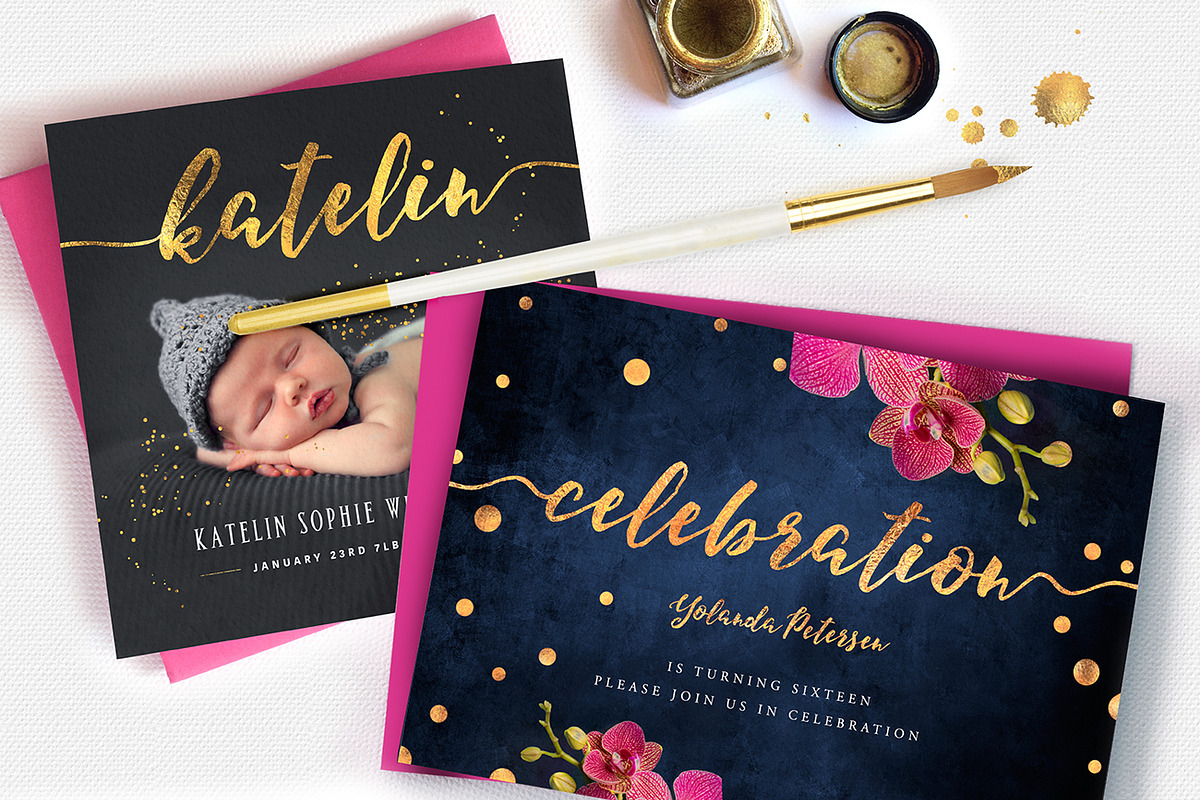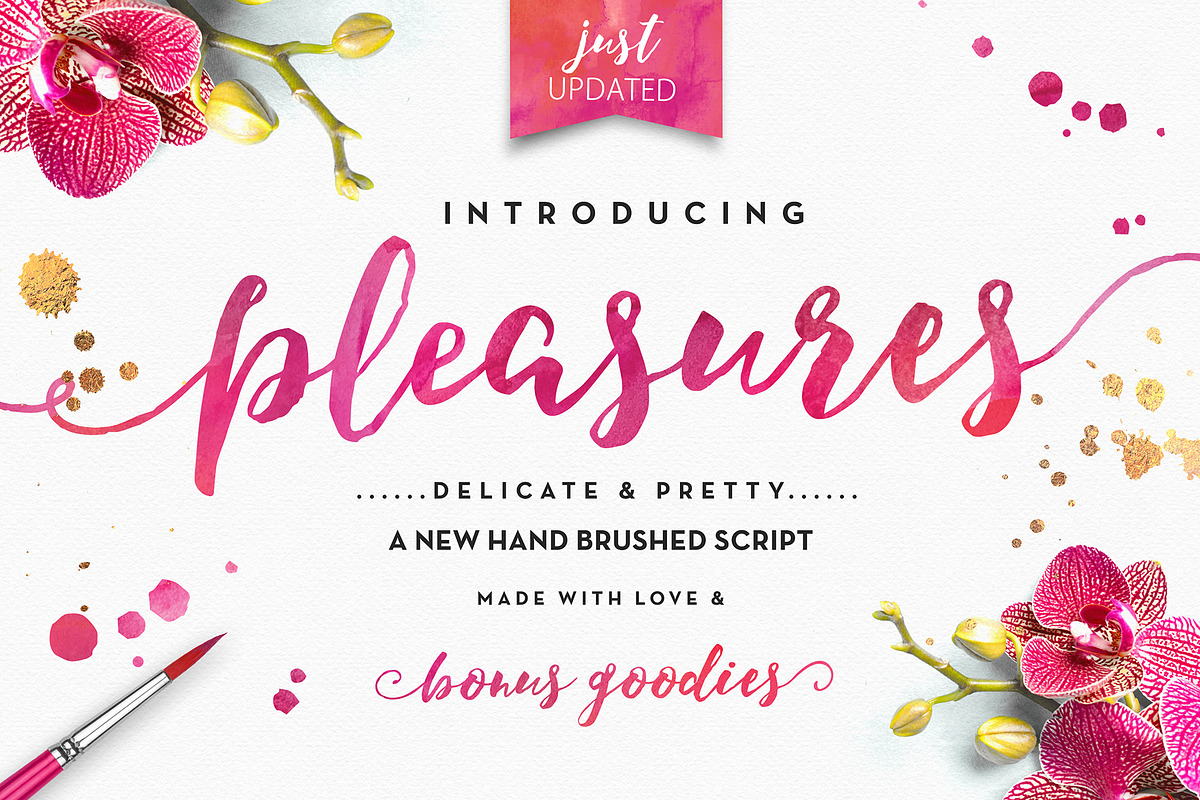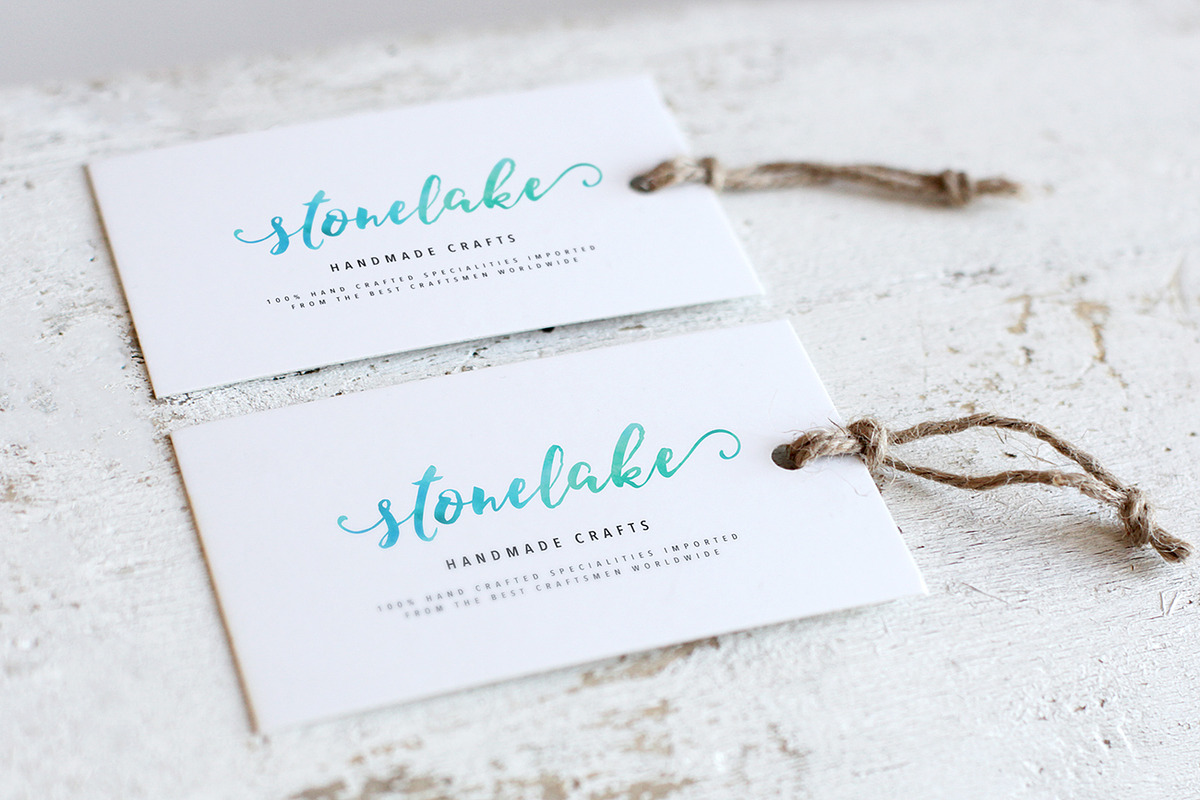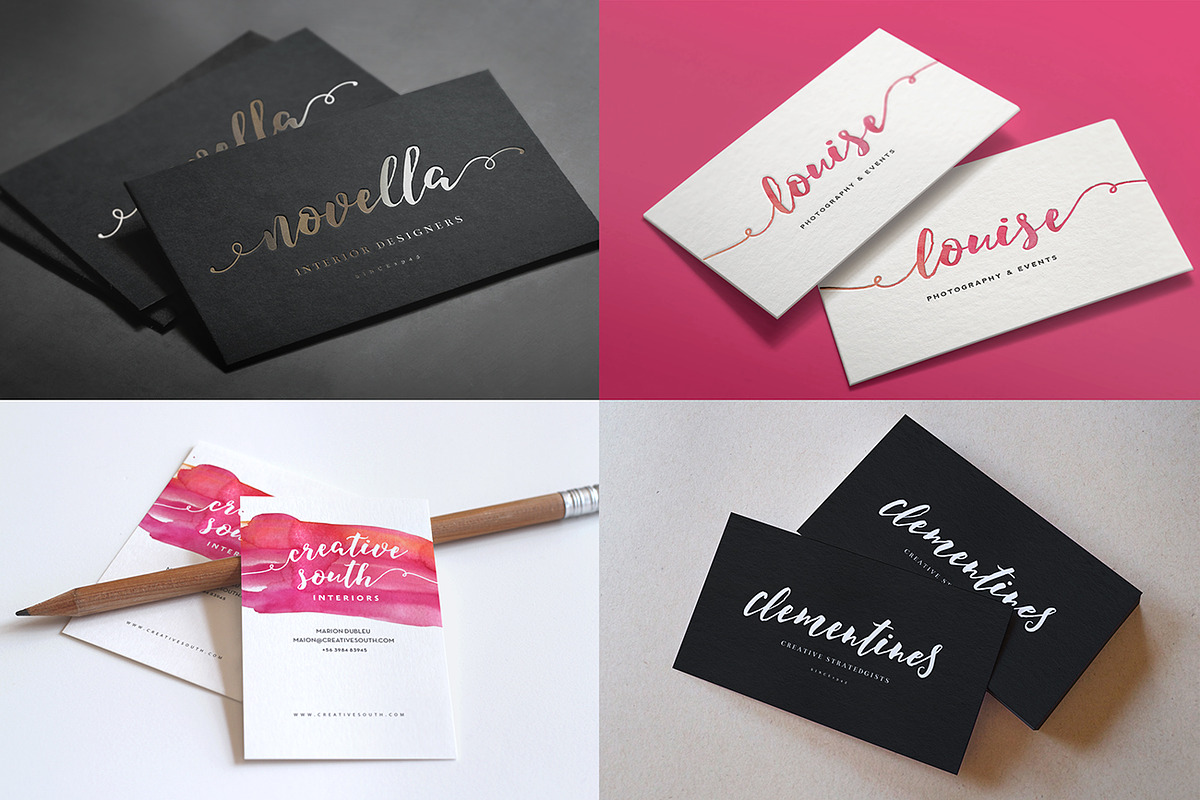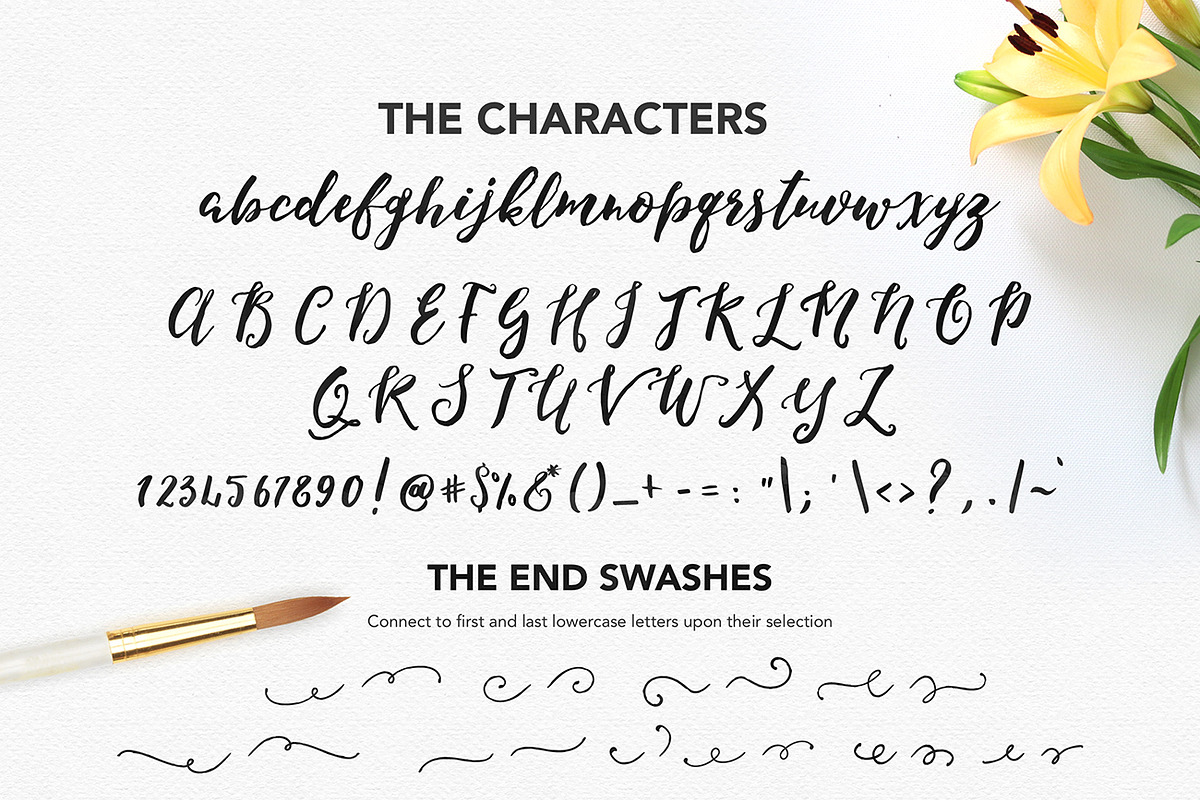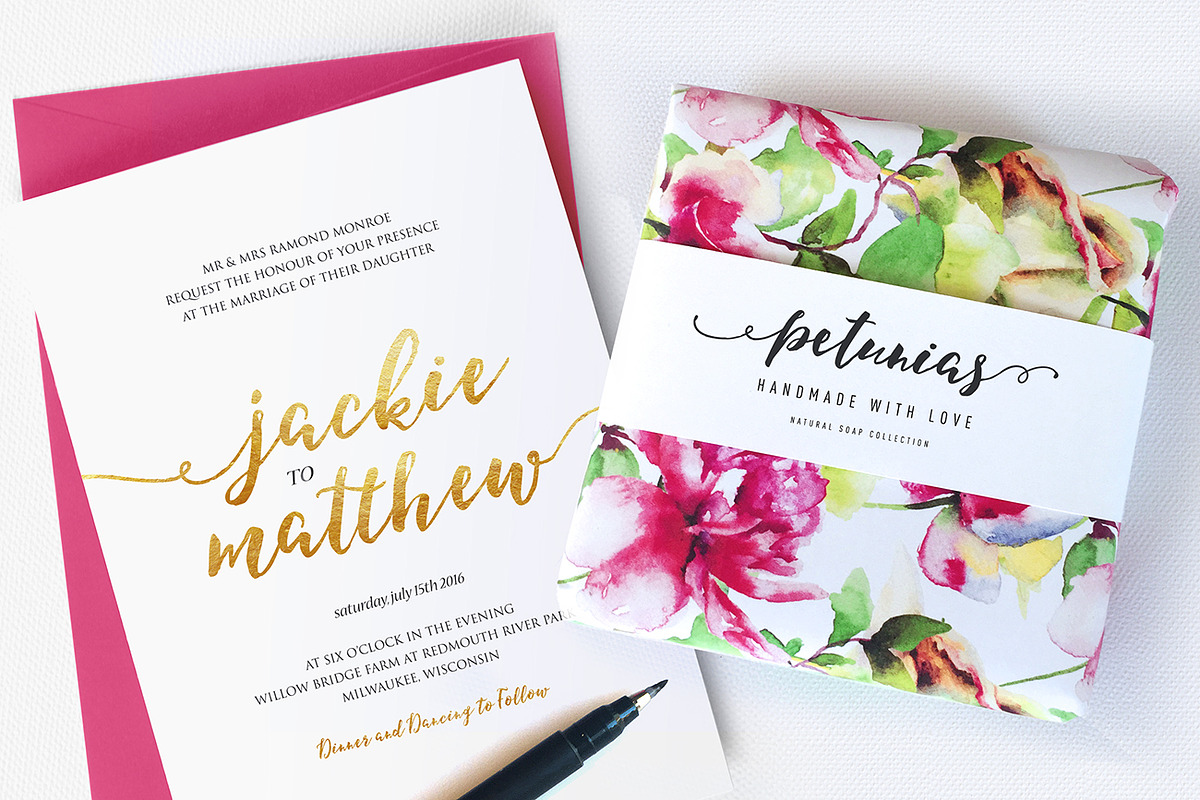
Pleasures Script + Extras
Introducing Pleasures Script...a new playful-yet-elegant brush script font....with oodles of exciting extras!
Pleasures Script comes with a selection of delightfully playful end-swashes for first and last letters , as well as an alternate set of lower case letters - all available using a glyphs panel as mentioned above :)
- The Slanted Pleasures Script font (Pleasures-Italic.otf) - a gently-slanted additional version of the original.